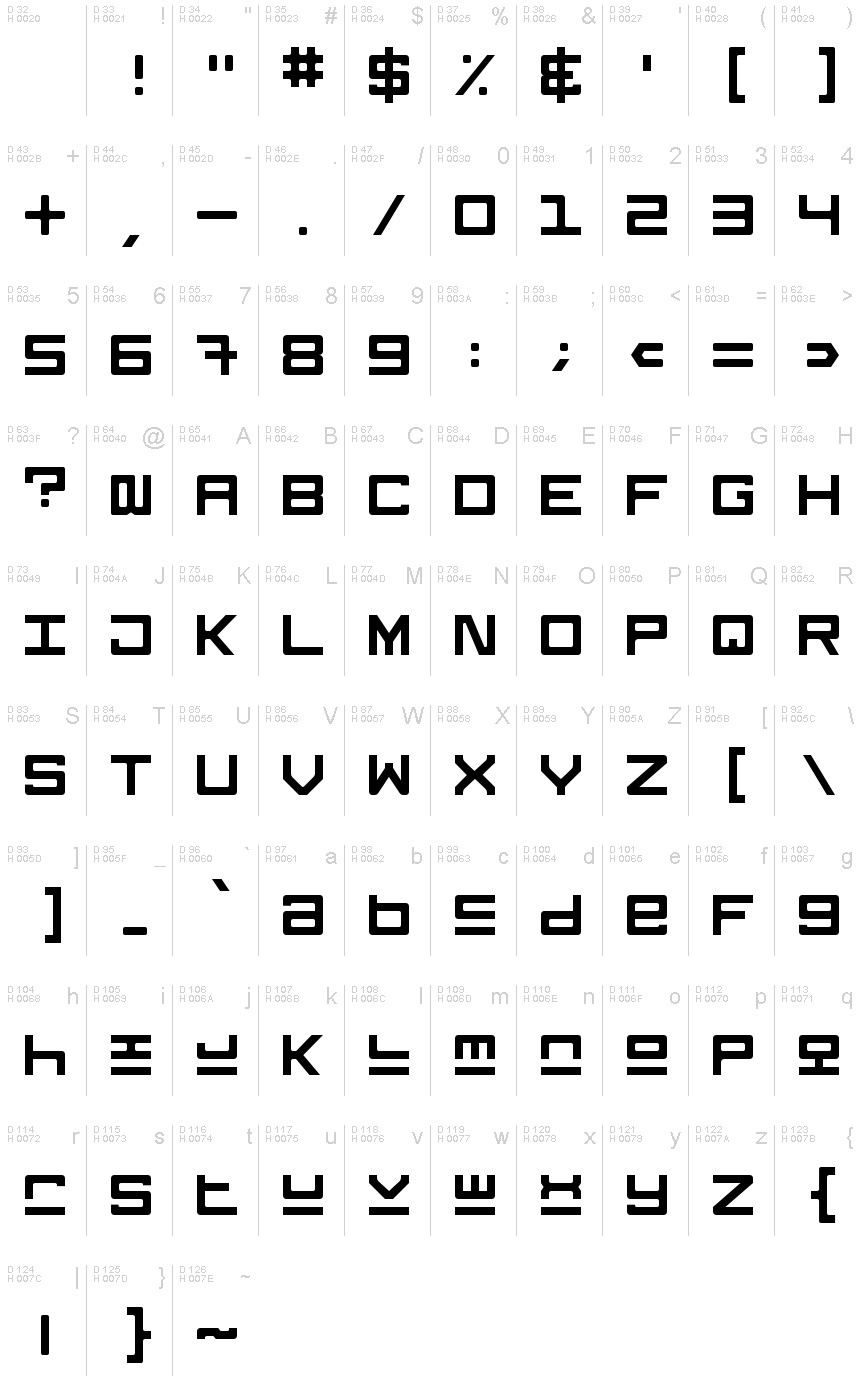
Keystone
Keystone is a striking, futuristic display font that commands attention. Designed by Hreggvidur Arsaelsson, its bold, angular letterforms radiate a sense of technological sophistication and modernity.
The font's distinctively sharp edges and clean, geometric aesthetic lend it an air of sleekness and precision, making it well-suited for a range of applications, from eye-catching headlines and branding to sci-fi-inspired digital interfaces and packaging.
Keystone's versatility shines through, offering designers a versatile tool to craft visually compelling and impactful typographic compositions across various mediums and industries.
The font's distinctively sharp edges and clean, geometric aesthetic lend it an air of sleekness and precision, making it well-suited for a range of applications, from eye-catching headlines and branding to sci-fi-inspired digital interfaces and packaging.
Keystone's versatility shines through, offering designers a versatile tool to craft visually compelling and impactful typographic compositions across various mediums and industries.